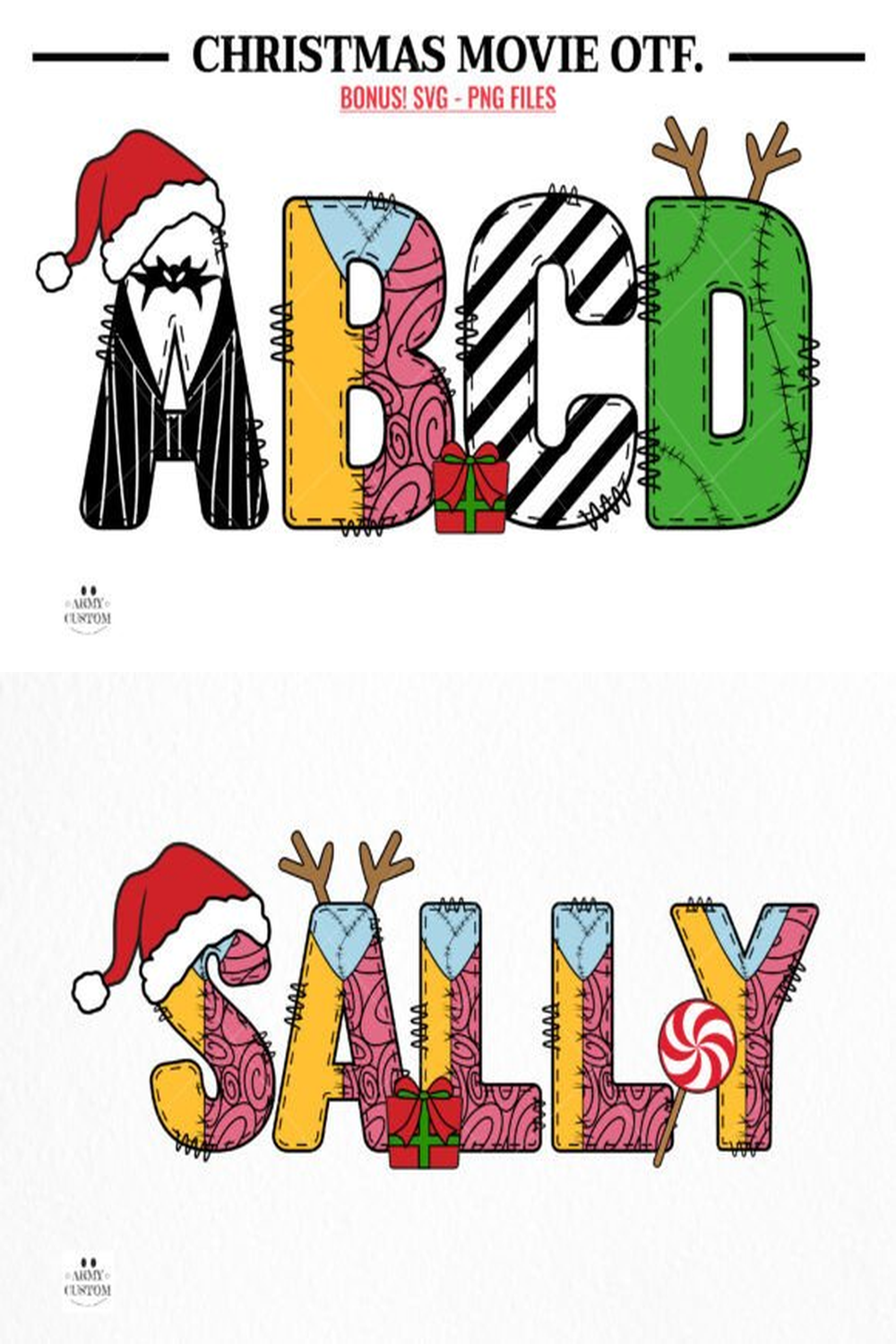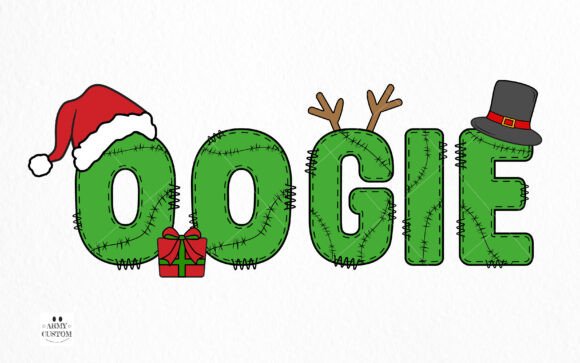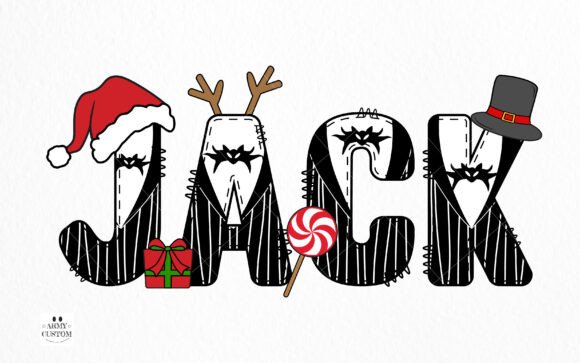
Christmas Movie Bundle Font
About the Christmas Movie Bundle Font
Step up your design game with Christmas Movie Bundle Font, a font that exudes confidence and style. Elevate your festive projects with the delightful ‘Christmas Movie Font’. Imbued with a sense of whimsy, this font is a playful addition to your holiday design toolkit. Its jovial style makes it an ideal choice for creating vibrant holiday decorations or adding a dash of merriment to any design project. With the Christmas Elf Font, every letter spelled out becomes a joyous celebration, inspired by the adorable antics of Santa’s helpers. Indulge in the spirit of the holiday season with this charming, elfish font.